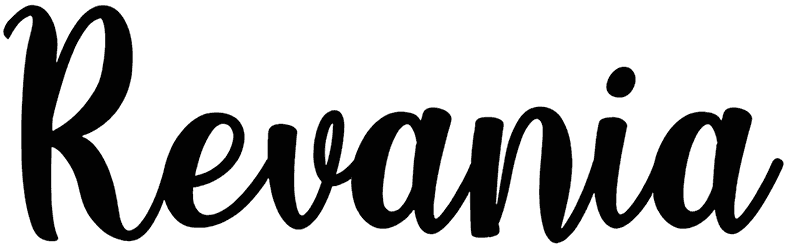
Revania Font
Revania is a flourish script font that is designed to capture the traditional and artistic mode of classic hand lettering and calligraphy in your designs. Because of its decorative nature, this font can help you whenever you need to design an exceptional wedding card, tattoo, remarkable poster, or outstanding invitation card.